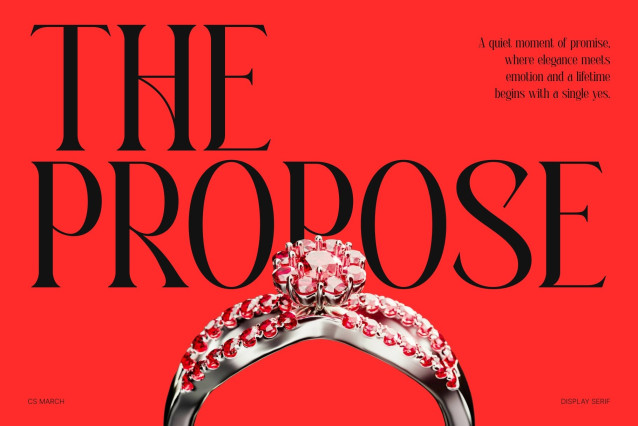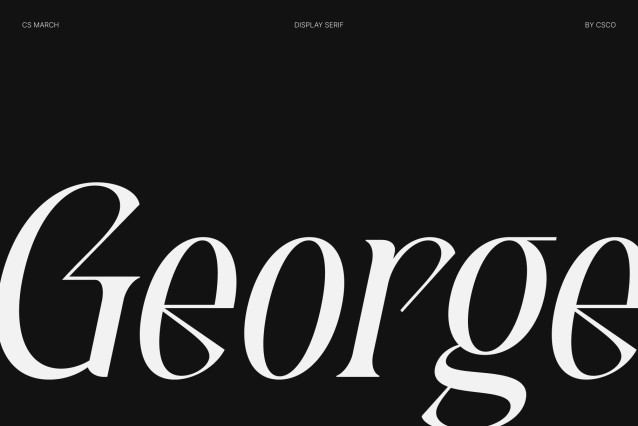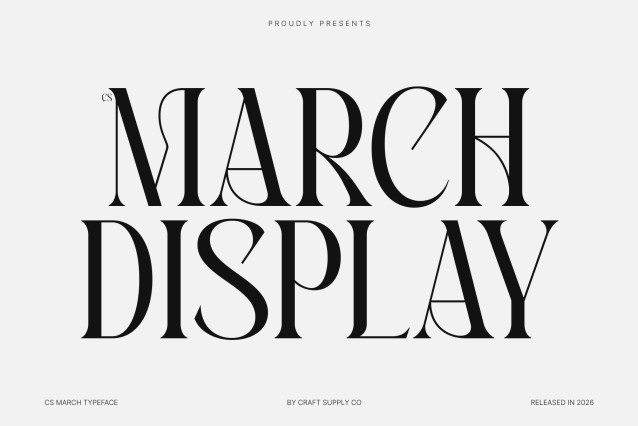
CS March – Modern Serif with Sleek Elegance
Modern Serif with Refined Contemporary Style
This is a modern serif font that embodies a refined sense of elegance and sophistication. With its clean and sleek shapes, this typeface delivers a polished visual tone that feels both timeless and contemporary. It is crafted for designers who seek typography that communicates beauty, clarity, and modern luxury.
Clean Forms with Contemporary Precision
The font features carefully constructed letterforms with smooth lines and balanced proportions. Its contemporary structure enhances readability while maintaining a graceful and sophisticated appearance. Each character is designed to feel light, elegant, and visually harmonious across all applications.
Elegant Personality with Captivating Presence
This font combines minimal elegance with subtle contrast, creating a captivating typographic voice. Its refined details and sleek design allow it to stand out without overwhelming the composition, making it ideal for creating stylish and high-end visual identities.